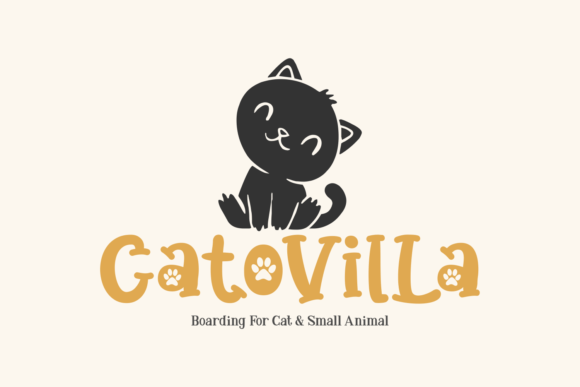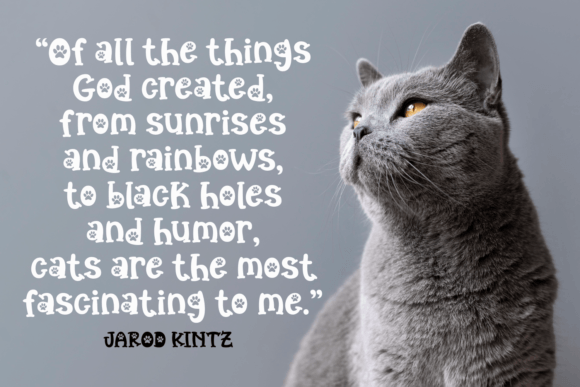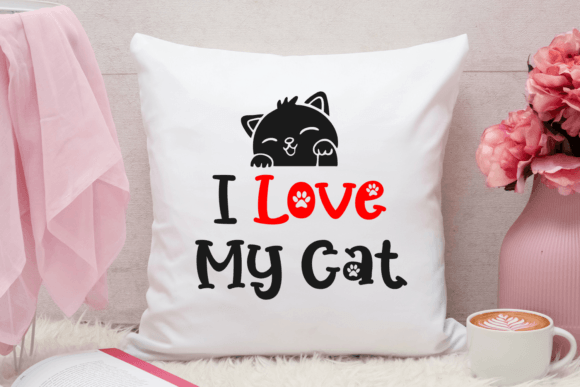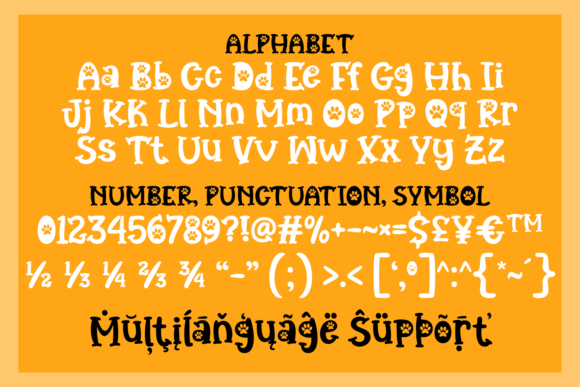
The Purrfect Font for Cat Lovers
Who hasn’t been inspired by a cute cat meme or a cuddly feline friend? I recall a moment when I stumbled upon a quirky cat-themed design project, and I just had to know: what font was behind that adorable cat face? It was then that I discovered the Catlovers Font, a delightful decorative font that’s as playful as it is charming.
As a font designed with cat enthusiasts in mind, Catlovers Font is perfect for creating fun, informal projects or cat-related designs that are sure to bring a smile to anyone’s face. Whether you’re a professional designer or a hobbyist, this font is a valuable addition to your toolkit, offering a unique and youthful vibe that’s sure to elevate your designs.
Catlovers Font Key Features
- Font Family: Catlovers Font offers a range of 6 unique font styles, each with its own distinct character.
- Unique Characteristics: The Catlovers Font features a playful, whimsical design with intricate details and textures, making it perfect for cat-themed designs, children’s books, and other creative projects.
- Language Support: Supports a wide range of languages, including Latin, Cyrillic, and Greek alphabets, making it a versatile font for global designs.
Designer Review: Catlovers Font
First impressions count, and Catlovers Font immediately caught my attention with its playful, whimsical feel ✨. The design is reminiscent of hand-drawn illustrations, which adds a touch of warmth and personality to any text. The font’s eclectic mix of curves and straight lines creates a sense of visual interest, making it perfect for projects that require a touch of quirkiness.
One of the standout features of Catlovers Font is its excellent legibility ✨. Even at smaller font sizes, the characters remain clear and easy to read. The font’s OpenType features also allow for a range of stylistic alternatives, which adds to its versatility and appeal.
- ⚠️ The font may be too playful for more formal or corporate projects, where a more serious tone is required.
- ⚠️ Some characters, such as the letter ‘g’, may not be as polished as others, which could affect the overall impression of the font.
Overall, I’m impressed with Catlovers Font’s unique personality and versatility ✨. While it may not be suitable for every project, it’s an excellent choice for those looking to add a touch of whimsy and creativity to their design work.
Getting the Most Out of Catlovers Font
For the best results, use Catlovers Font in combination with whimsical graphics and pastel colors. This font is ideal for creating playful, cat-themed designs, such as cat cafe menus, cat calendars, or cat merchandise. Experiment with different font sizes and colors to achieve the desired look.
Some common use cases for Catlovers Font include:
– Cat cafe menus
– Cat calendars
– Cat merchandise
– Advertising materials
Alternatives to Catlovers Font
Catlovers Font is a script font known for its elegant and playful feel. However, designers may seek alternatives for specific projects. Here are a few options:
Great Vibes is a modern script font that offers a similar elegant feel to Catlovers Font. It’s ideal for projects that require a touch of sophistication, such as wedding invitations, luxury branding, and high-end packaging.
Comparison: Great Vibes has a more polished and refined look compared to Catlovers Font, making it suitable for high-end projects. However, it lacks the whimsical feel of Catlovers Font.
Carolyna Pro is a luxurious script font that offers a mix of elegance and sophistication. It’s perfect for projects that require a touch of glamour, such as fashion branding, luxury goods, and high-end advertising.
Comparison: Carolyna Pro has a more dramatic and luxurious feel compared to Catlovers Font, making it suitable for high-end projects. However, it lacks the playful feel of Catlovers Font.
Q: What is the character set and language support for the Catlovers Font?
The Catlovers Font includes a comprehensive character set, covering Latin, Cyrillic, and Greek alphabets, as well as a range of punctuation and symbol characters. Language support includes English, Spanish, French, German, Italian, Portuguese, and many other languages. For specific language support details, please refer to the font’s documentation or contact our support team.